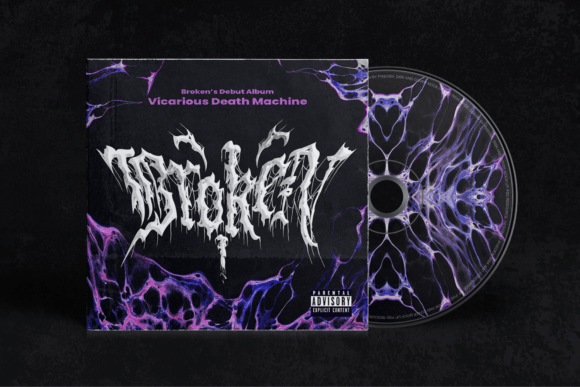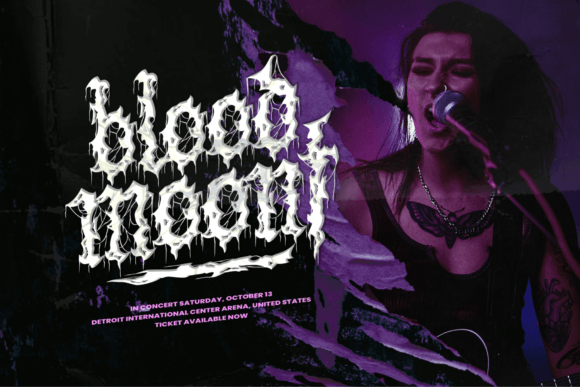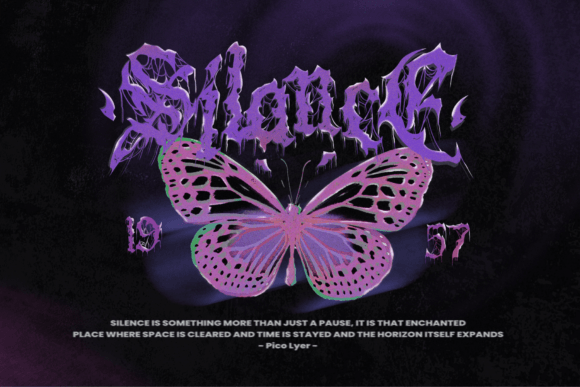
Introduction to Phenom Mouse Font
Phenom Mouse is a gothic font that was modified from a blackletter font by adding additions such as roots to produce a unique font, commonly used for metal band logos or underground bands, or band concert posters.
This font that looks scary and complicated is not suitable for a paragraph, because it’s actually just a display font This blackletter development can be categorized into modern fonts.